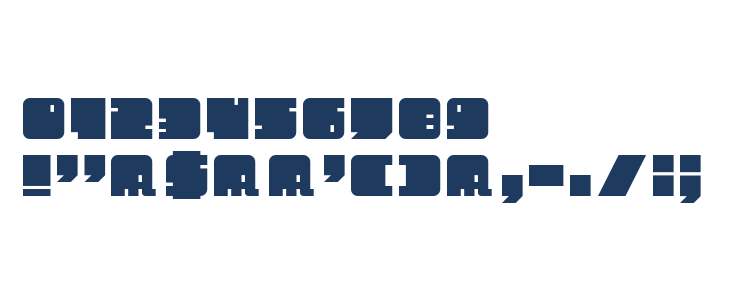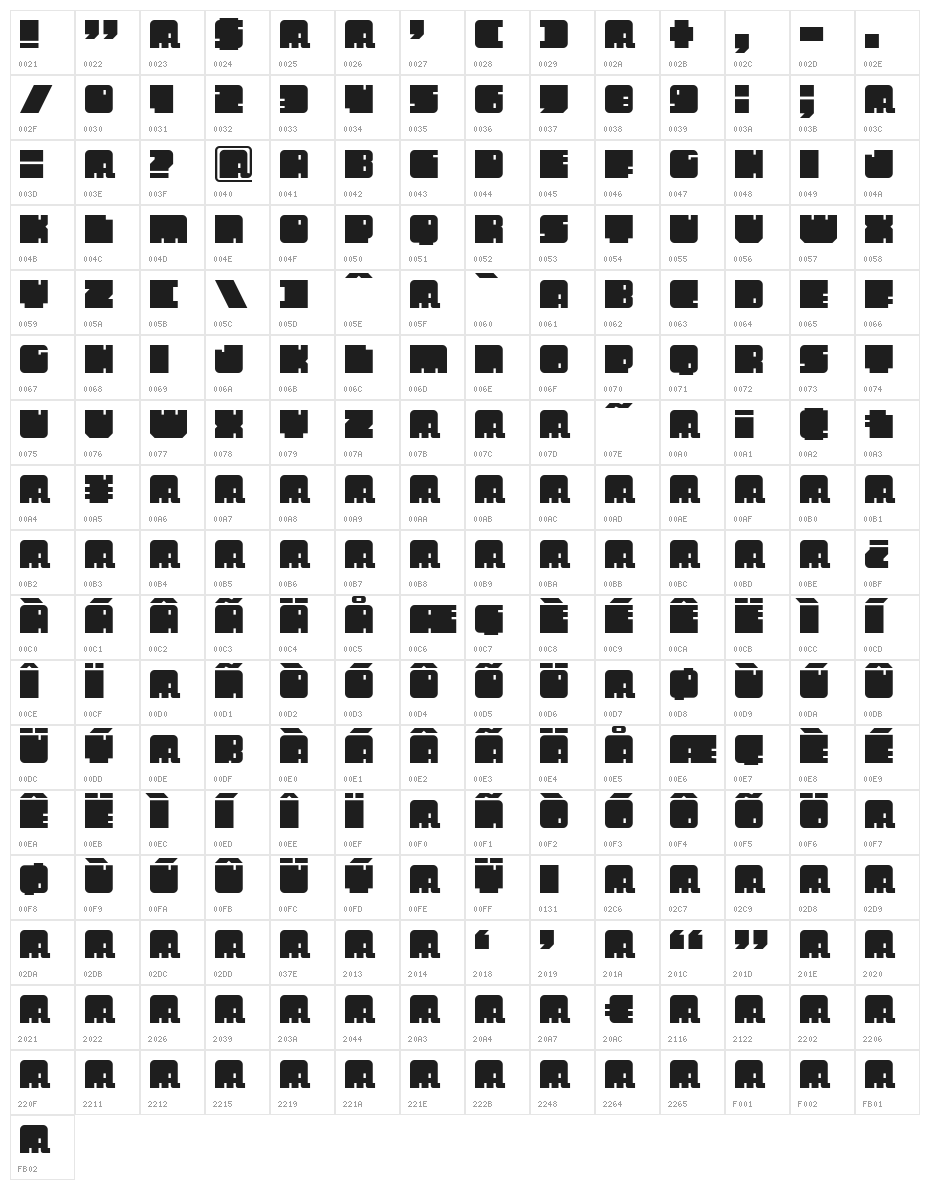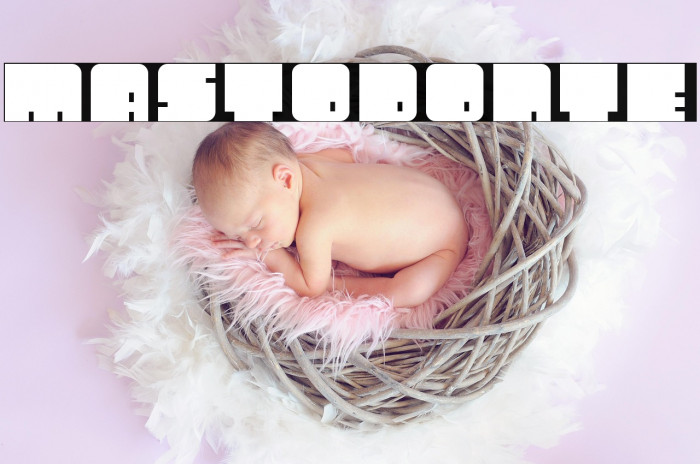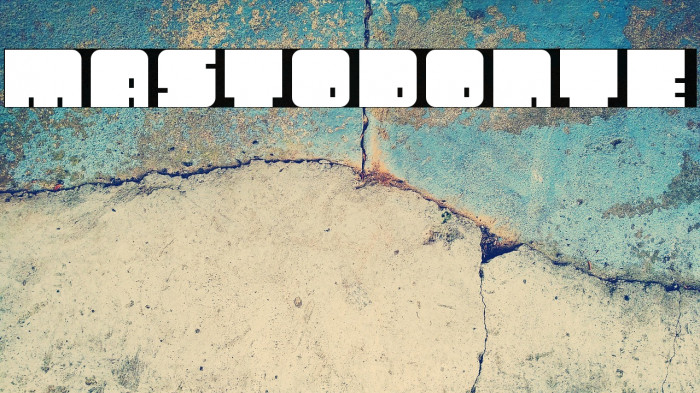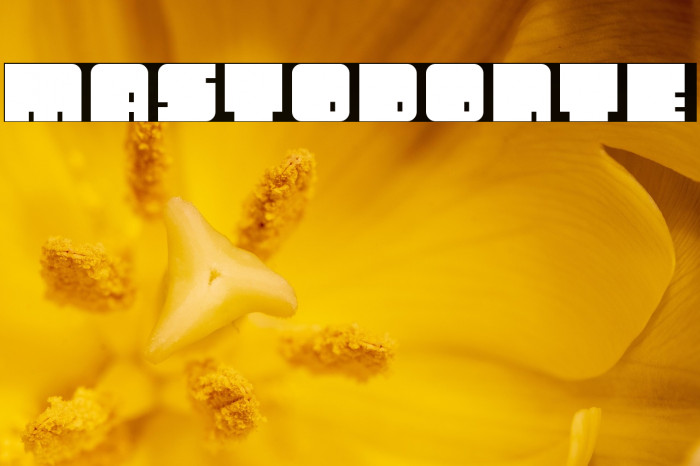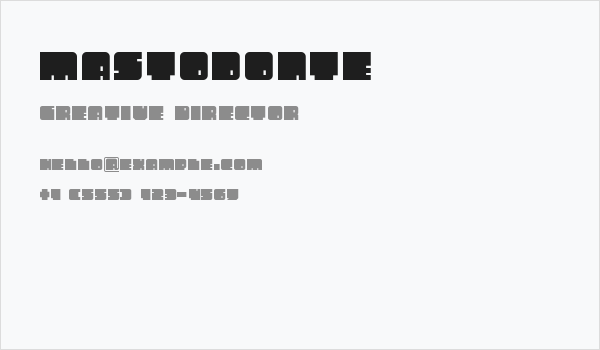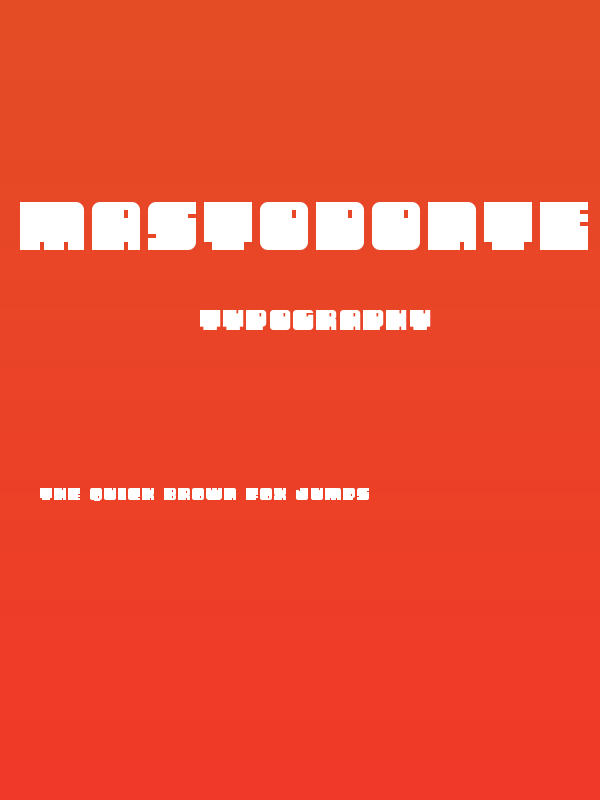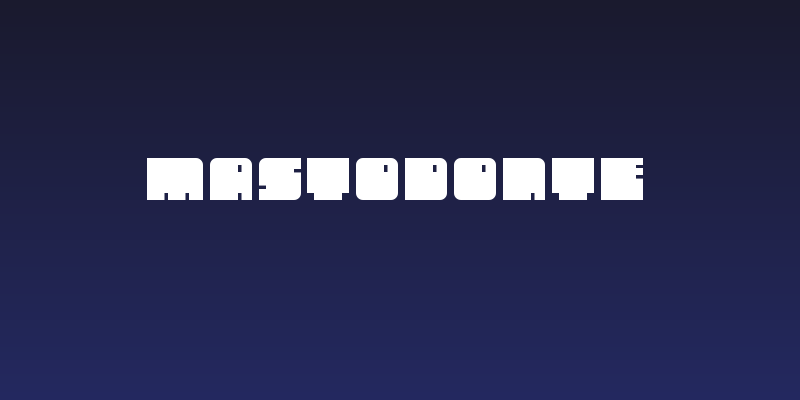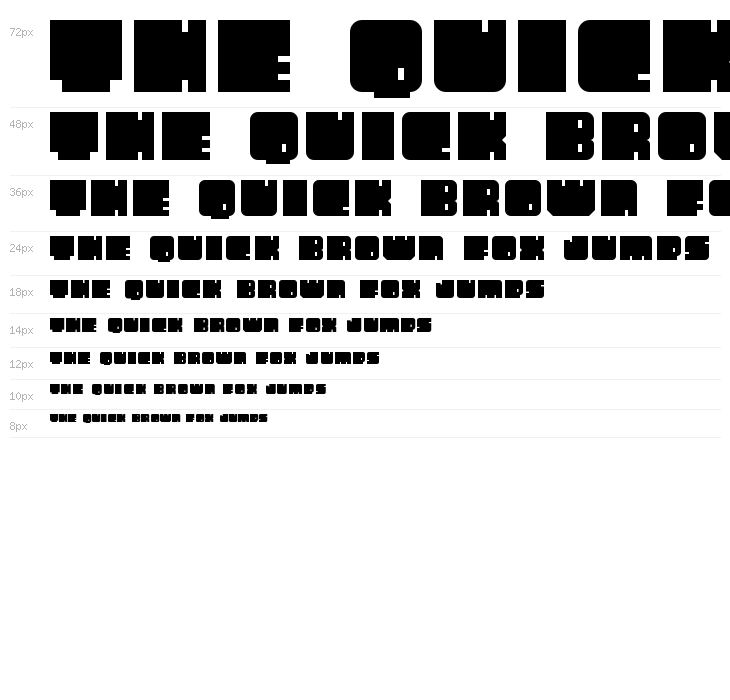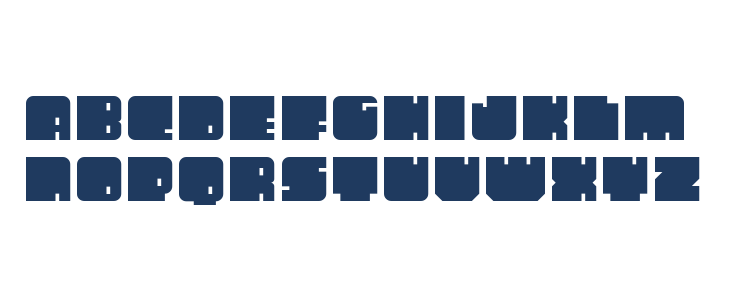
Mastodonte Font
Mastodonte Description
This font features a bold and blocky design with a strong, impactful presence. The characters are uniformly wide, creating a sense of stability and strength. The edges are sharp and angular, giving it a modern and industrial feel. The uppercase and lowercase letters maintain a consistent style, while the numerals and special characters complement the overall aesthetic. This font is designed to grab attention and make a statement, suitable for projects that require a bold visual impact.